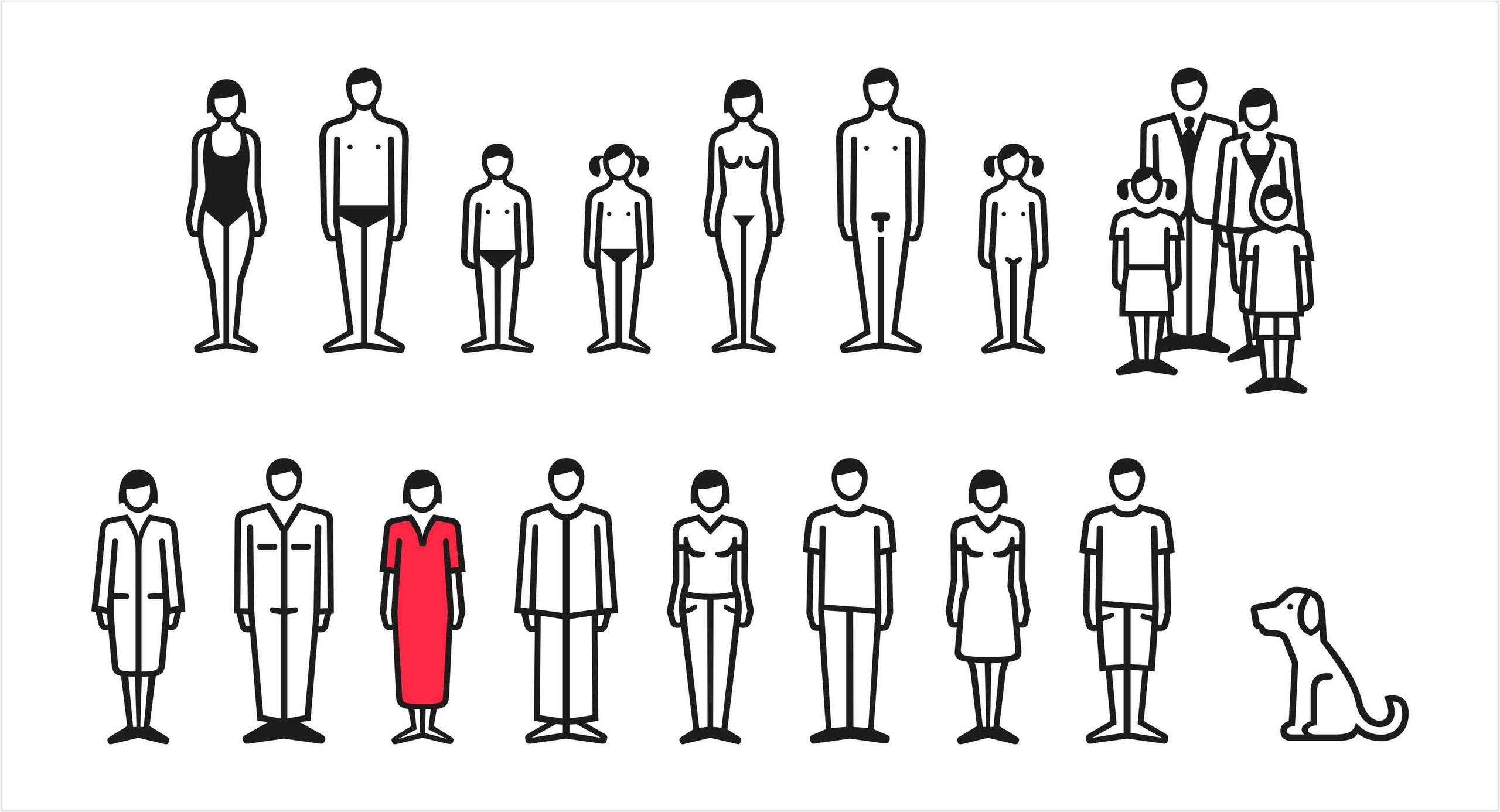
Dingbats 2.0 Font
Dingbats 2.0 Font is perfect for visual communication systems, icon-based design projects, symbolic branding applications, decorative editorial layouts, infographic design elements, user interface iconography, ornamental packaging solutions, and creative advertising campaigns. This symbolic typeface works exceptionally well in both digital applications and print media where visual symbols and decorative elements are fundamental design requirements.
What makes Dingbats 2.0 Font so exciting is its comprehensive collection of contemporary symbols and decorative elements through carefully curated pictographic characters that provide endless creative possibilities for visual communication beyond traditional letterforms. The font features diverse symbols with optimized proportions, universal recognition, and versatile details that enhance visual storytelling, decorative design, and the efficient communication of ideas through internationally recognized iconography. Its symbolic personality and contemporary design make it ideal for designers seeking to expand their visual vocabulary while creating communications that transcend language barriers through universal visual symbols.
The Dingbats 2.0 Font family includes extensive symbol collections with different thematic categories, along with decorative alternates and contemporary ornamental elements. Each symbol maintains the typeface's systematic character while offering comprehensive visual communication support including arrows, bullets, borders, decorative elements, and special symbols designed to enhance graphic communications and symbolic branding efforts across various creative contexts.
This remarkable typeface represents the perfect evolution of symbolic communication optimized for contemporary design challenges and international applications. Whether you're developing visual identity systems, creating infographic materials, or designing user interface elements, Dingbats 2.0 Font Free Download delivers the symbolic versatility and visual clarity needed for successful contemporary communications. The font's universal approach makes it particularly effective for international brands, design agencies, digital platforms, and organizations requiring clear visual communication across diverse cultural and linguistic boundaries.
The precisely engineered symbolic construction and optimized visual performance in Dingbats 2.0 Font ensure maximum communication efficiency while maintaining consistent visual quality across all graphic applications. Its systematic presence makes it ideal for visual branding, symbolic marketing materials, and decorative communications where its full symbolic character can create clear understanding and enhance visual communications with audiences seeking efficient, universally recognizable visual elements.